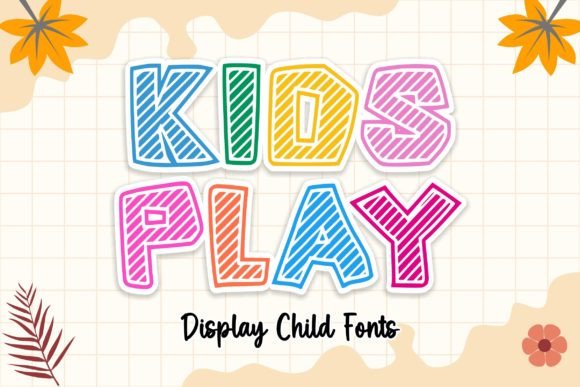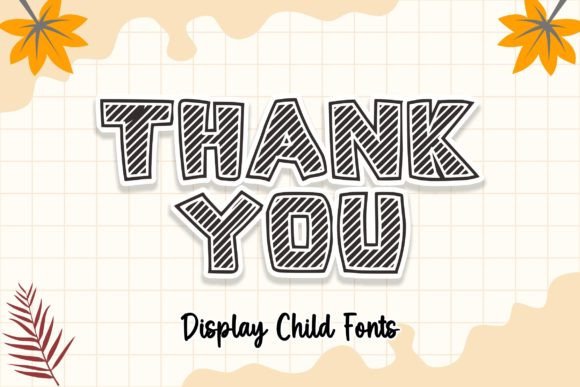
Introducing Picture Font: The Ultimate Children’s Font for Sparking Joy and Creativity
Are you a designer, educator, or content creator looking for a unique and engaging font to bring a smile to children’s faces? Look no further than Picture Font, a delightful and whimsical children’s font designed to inspire joy and creativity in young minds. In this article, we’ll explore the features and benefits of Picture Font, and why it’s the perfect choice for projects centered around children’s content.
The Whimsical Charm of Picture Font
Picture Font is a one-of-a-kind children’s font that combines playful and endearing characters to create a visually engaging and fun experience for kids. Each character is carefully crafted to brim with charm and appeal, transforming simple text into a delightful array of cute and colorful symbols. Whether you’re creating a children’s book, educational materials, or a fun craft project, Picture Font is sure to capture the imagination of young readers and inspire creativity.
Designed with Kids in Mind
Picture Font is specifically designed to foster a jovial and kid-friendly environment, making it an irresistible choice for designers, educators, and content creators working on projects for children. The font’s lovable aesthetic and unmistakable kid appeal make it perfect for a wide range of applications, from children’s books and educational materials to craft projects and DIY activities.
Key Features of Picture Font
- Whimsical and playful design: Each character is carefully crafted to bring a smile to children’s faces and inspire creativity.
- Endearing appeal: Picture Font’s unique design makes it perfect for creating engaging and visually appealing content for kids.
- Kid-friendly environment: The font’s playful and fun design creates a welcoming and engaging atmosphere for young readers.
- Perfect for designers, educators, and content creators: Picture Font is ideal for anyone working on projects centered around children’s content.
Why Choose Picture Font?
So why choose Picture Font for your next project? Here are just a few reasons:
- Unique and engaging: Picture Font is a one-of-a-kind font that will set your project apart from the rest.
- Inspires creativity: The font’s playful design inspires creativity and imagination in young minds.
- Easy to read and understand: Despite its playful design, Picture Font is easy to read and understand, making it perfect for children’s content.
- Versatile: Picture Font can be used for a wide range of applications, from children’s books to craft projects and DIY activities.
Using Picture Font in Your Projects
Picture Font is easy to use and can be incorporated into a wide range of projects, including:
- Children’s books: Create engaging and visually appealing stories that will capture the imagination of young readers.
- Educational materials: Use Picture Font to create fun and interactive learning materials that will inspire young minds.
- Craft projects: Add a touch of whimsy and fun to your craft projects with Picture Font.
- DIY activities: Use Picture Font to create fun and engaging DIY activities for kids.
| Font Name | Drawing Font |
In conclusion, Picture Font is a unique and engaging children’s font that is perfect for designers, educators, and content creators working on projects centered around children’s content. Its whimsical and playful design inspires creativity and imagination in young minds, making it an irresistible choice for anyone looking to bring a smile to children’s faces. With its ease of use and versatility, Picture Font is sure to become a go-to font for anyone working with children.
Get Ready to Spark Joy and Creativity with Picture Font!